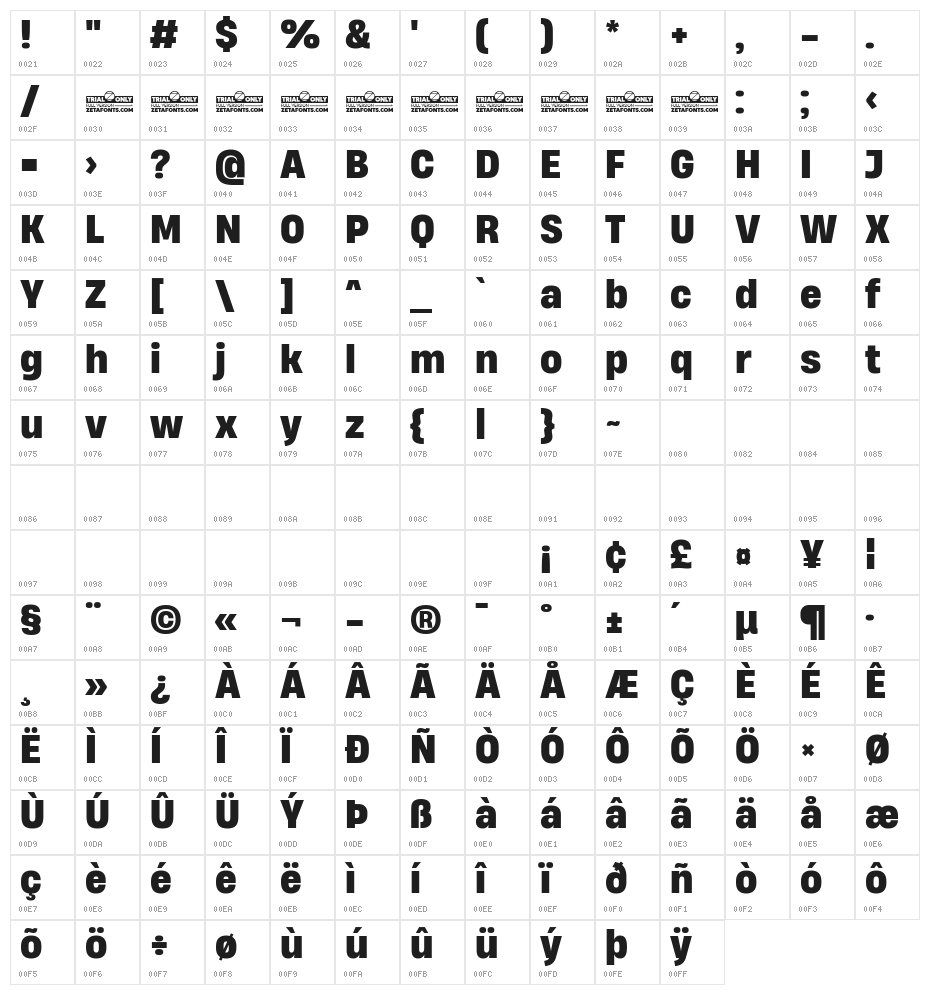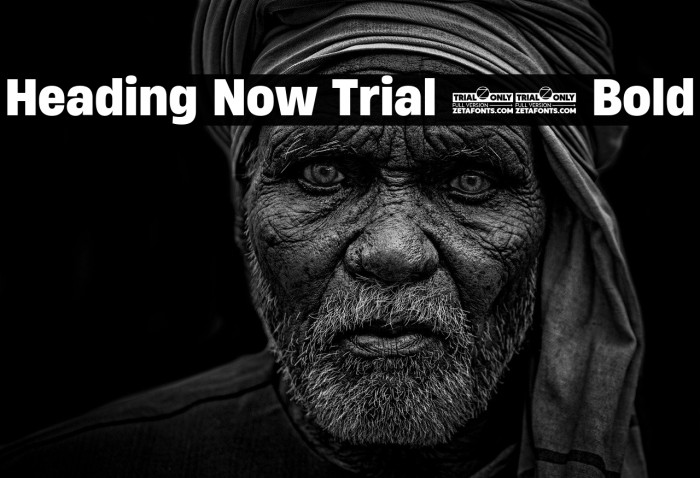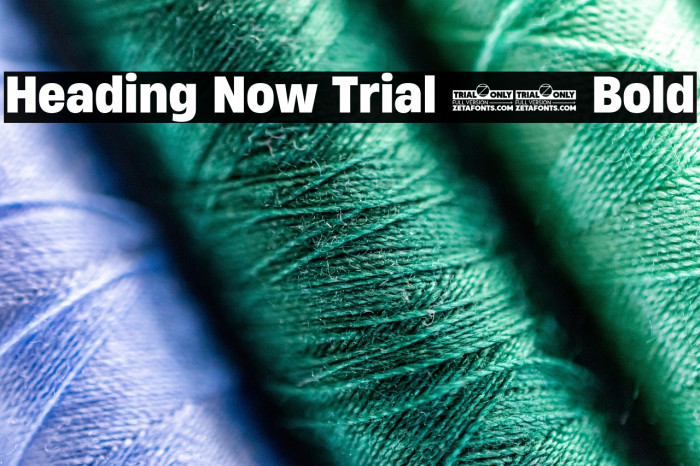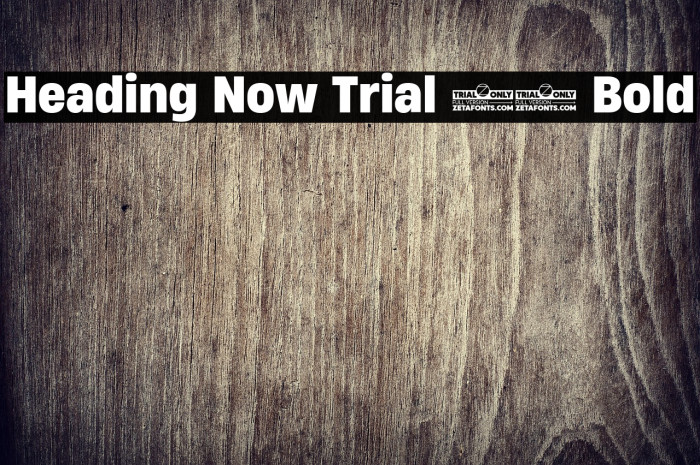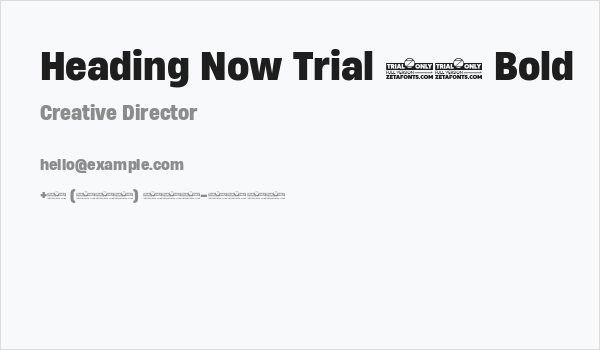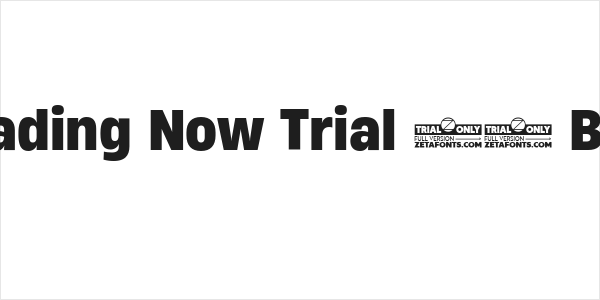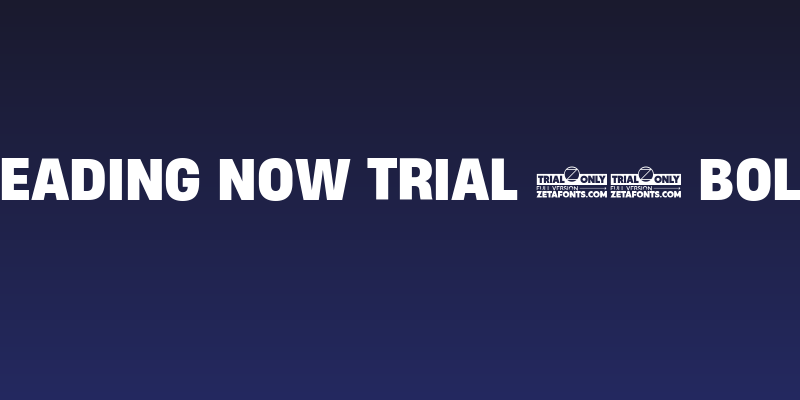
Heading Now Trial 66 Bold Font
Heading Now Trial 66 Bold Description
This font is a bold, sans-serif typeface characterized by its strong, impactful presence. The letters are uniformly thick, providing a consistent and powerful look across both uppercase and lowercase characters. The design is clean and modern, with a focus on readability and clarity. The numbers and special characters maintain the same boldness, ensuring a cohesive appearance throughout. This typeface is ideal for making statements, with its high contrast and wide character spacing that enhances legibility.
| Proposed Projects | Ideal for headlines, posters, branding, and advertising where a strong visual impact is needed. |